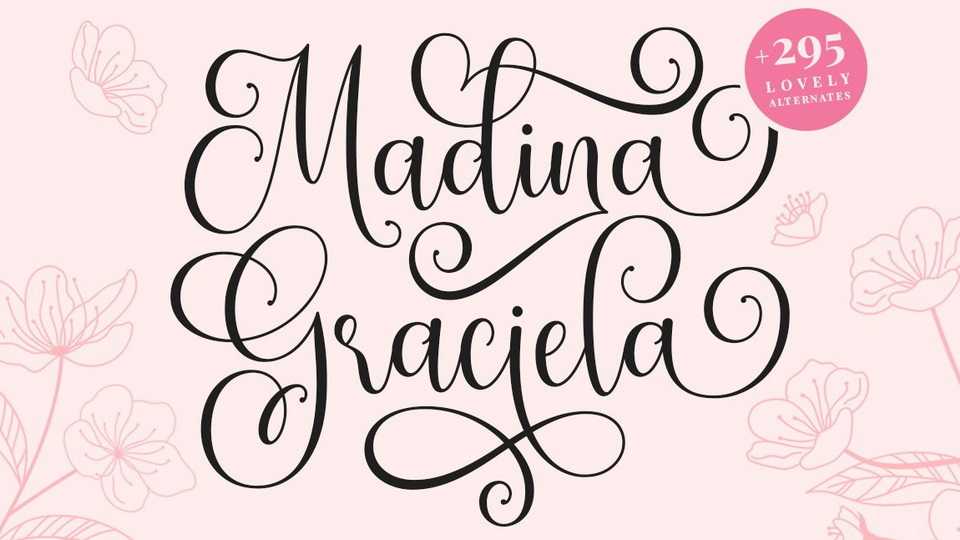
Download Madina Graciela font, a romantic modern calligraphy script with smooth handwritten flows. Madina Graciela is perfect for logos, wedding stationery, cards, gift designs, photography, watermark, product packaging, and handwritten quotes.